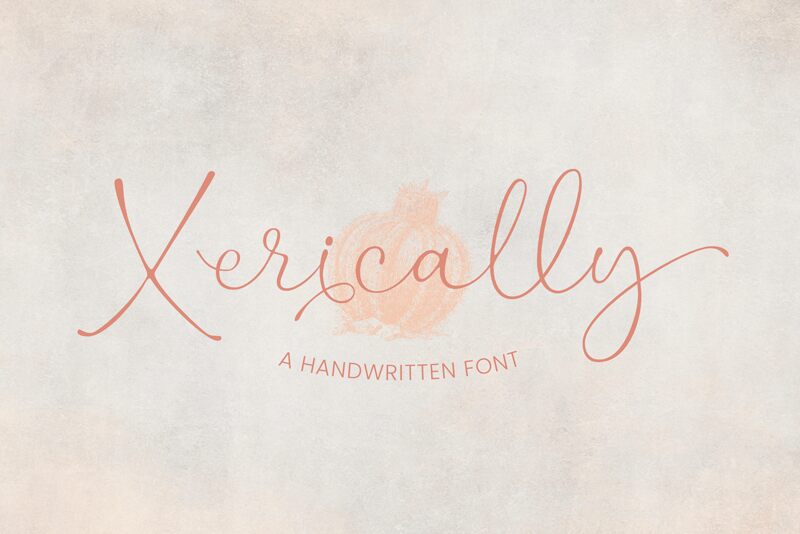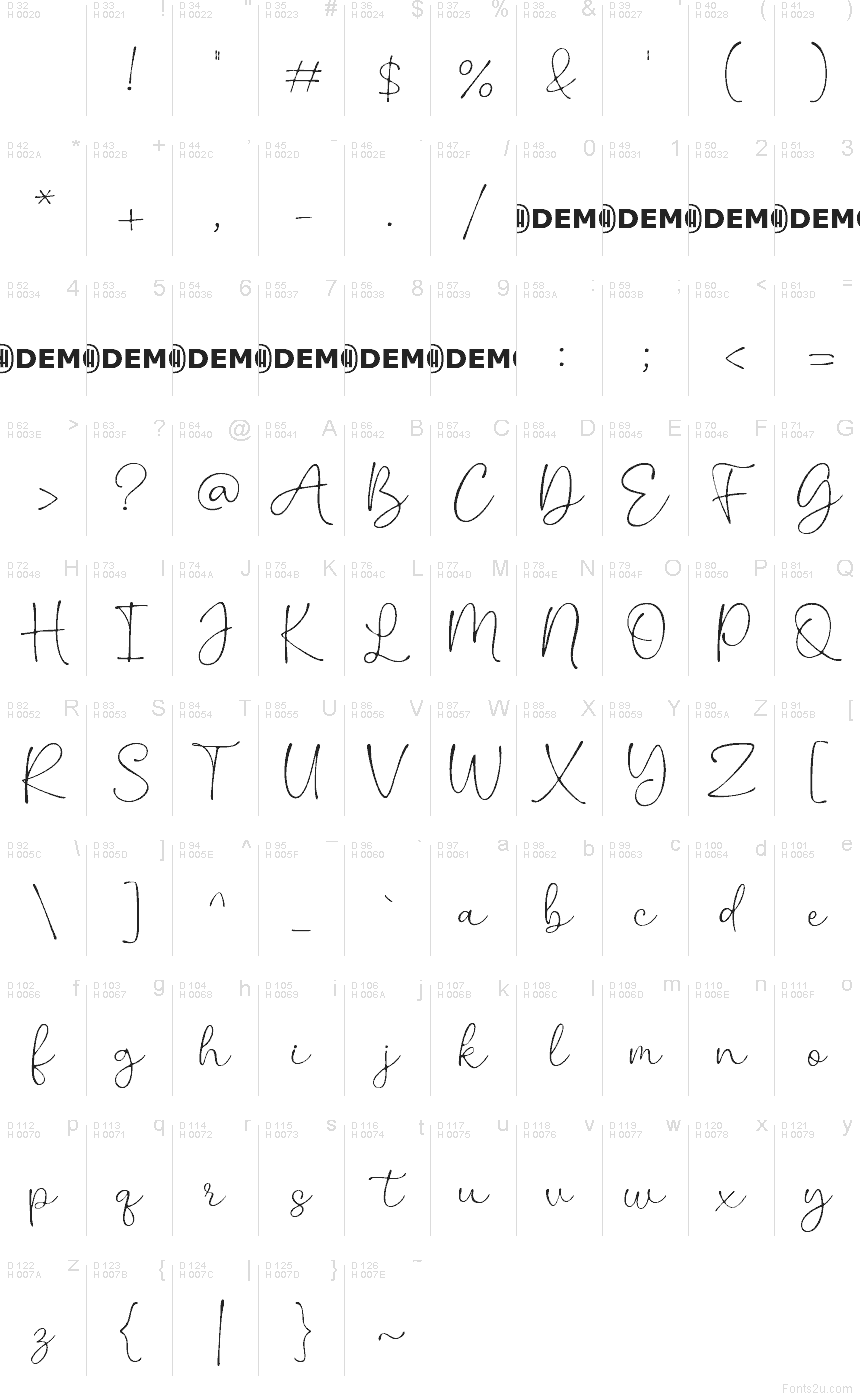
Xerically Regular
Xerically font by Ali Hamidi of Niskala Huruf is a free handwritten font with a breezy, ink-on-paper flow and long, looping strokes that feel like a confident signature. The lines are slim and airy, with generous curves that keep words light and personable rather than loud. It’s got that slightly romantic, handwritten rhythm that makes a short phrase feel considered.
Using Xerically, you’ll get a natural fit for logo wordmarks, boutique packaging, wedding invites, beauty branding, coffee labels, social quotes, and personal stationery. Set it a touch larger so the fine strokes stay crisp, and pair it with a clean sans like Montserrat for supporting text and details. This free font shines most when you let the loops breathe.